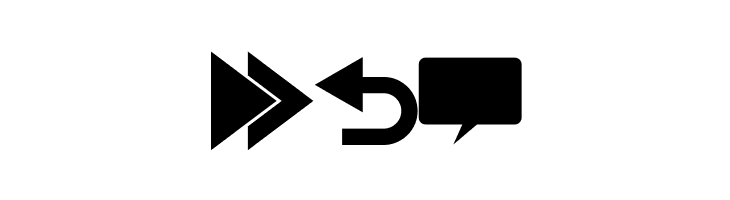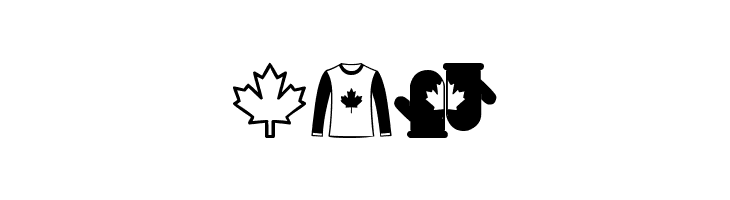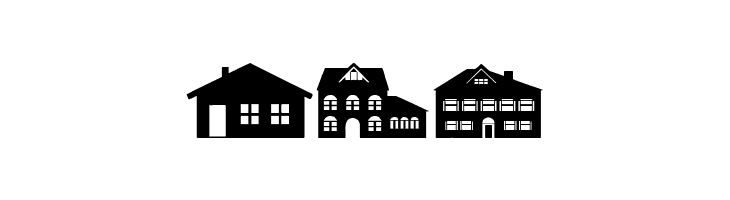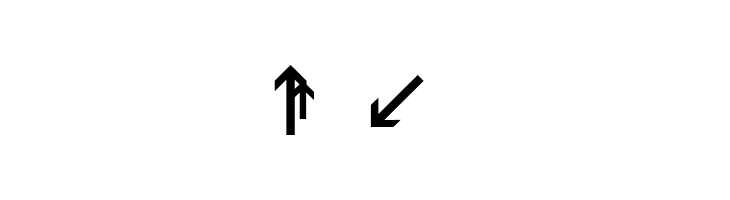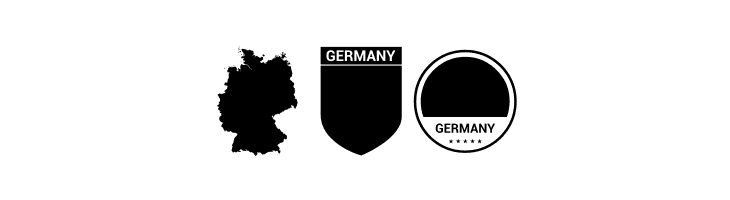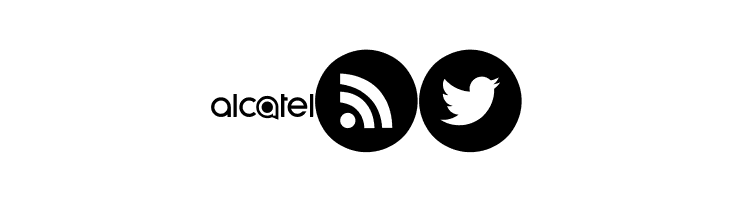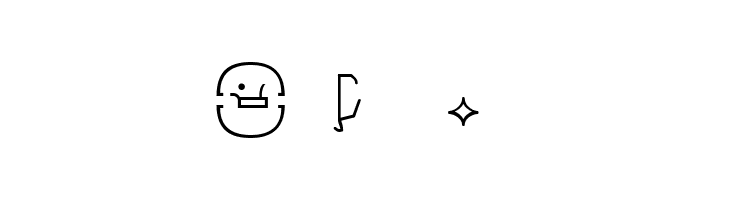
Bold, graphic pictogram and logo set with a German theme.
Bold, circular icon set for tech and social media brands.
Religious pictogram dingbat font with bold, high-contrast icons.
Highly decorative font with pictographic, symbolic glyphs.
Bold, geometric icon set with high legibility.
A bold icon set font with business and finance pictograms.
A display font made up of church-themed pictograms.
A Canada-themed icon font with bold, simple pictograms.
A decorative icon set featuring various house and real estate symbols.
Bold, geometric pictograms and sans-serif numerals for signage.